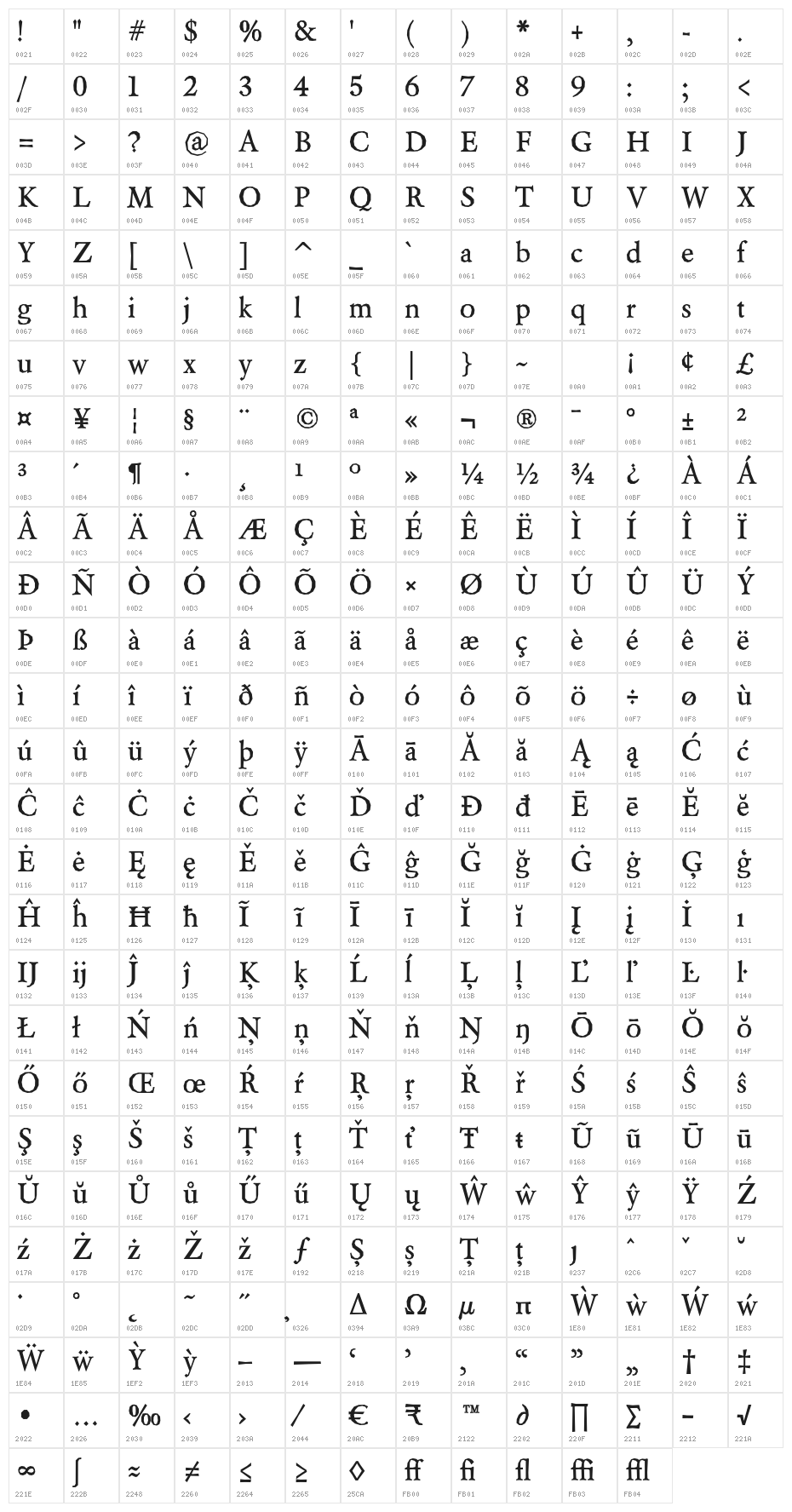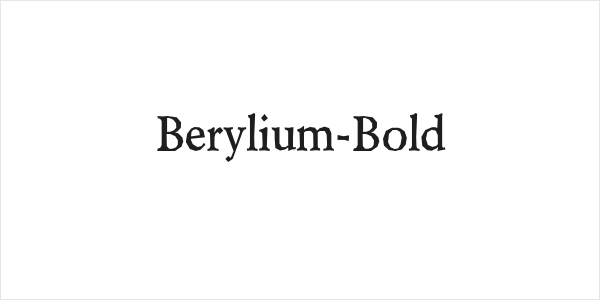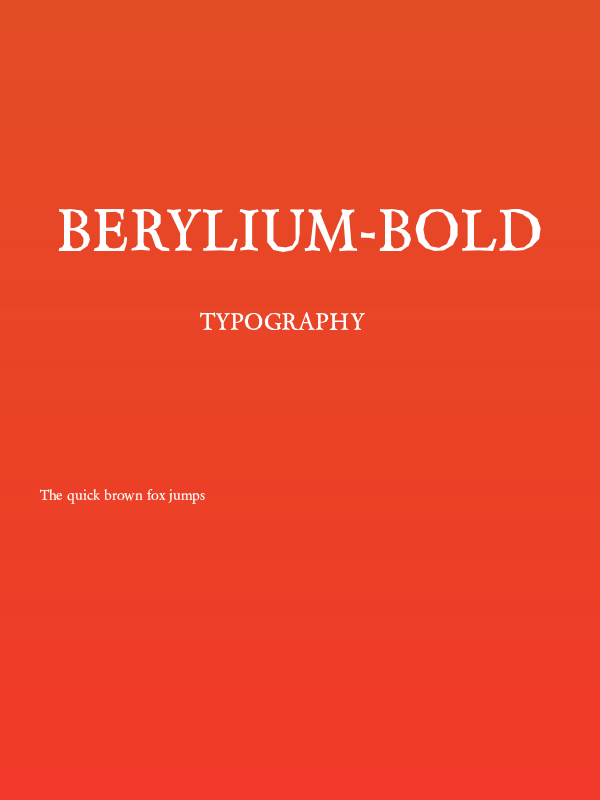
Berylium-Bold Font
Berylium-Bold Description
This font features a bold and striking serif design, characterized by its strong, angular serifs and high contrast between thick and thin strokes. The uppercase letters exhibit a commanding presence with their sharp edges and pronounced curves, while the lowercase letters maintain a consistent style that complements the uppercase. The numerals are distinct and easily readable, with a classic touch that aligns with the overall serif theme. Special characters are well-integrated, maintaining the font's bold and authoritative aesthetic. This font's design is both traditional and impactful, making it suitable for a variety of uses.
| Use Case | Headlines, Logos, Editorial |
| Proposed Projects | Ideal for book covers, editorial headlines, branding projects, and formal invitations. |